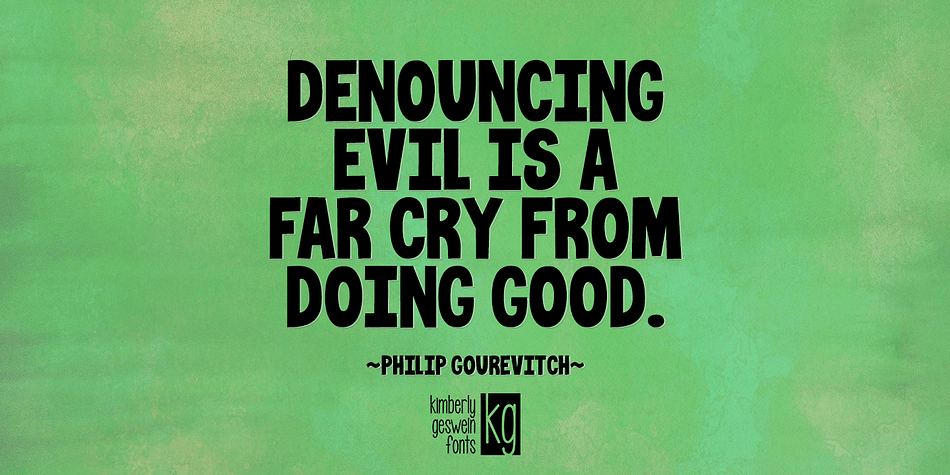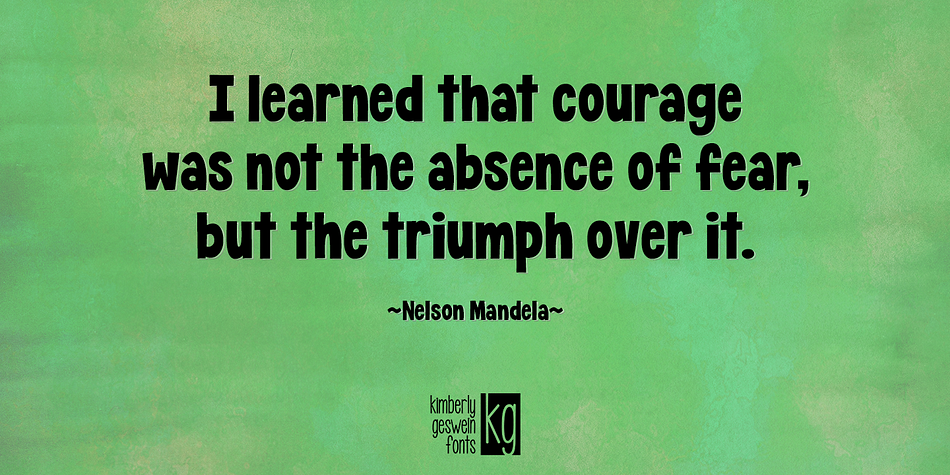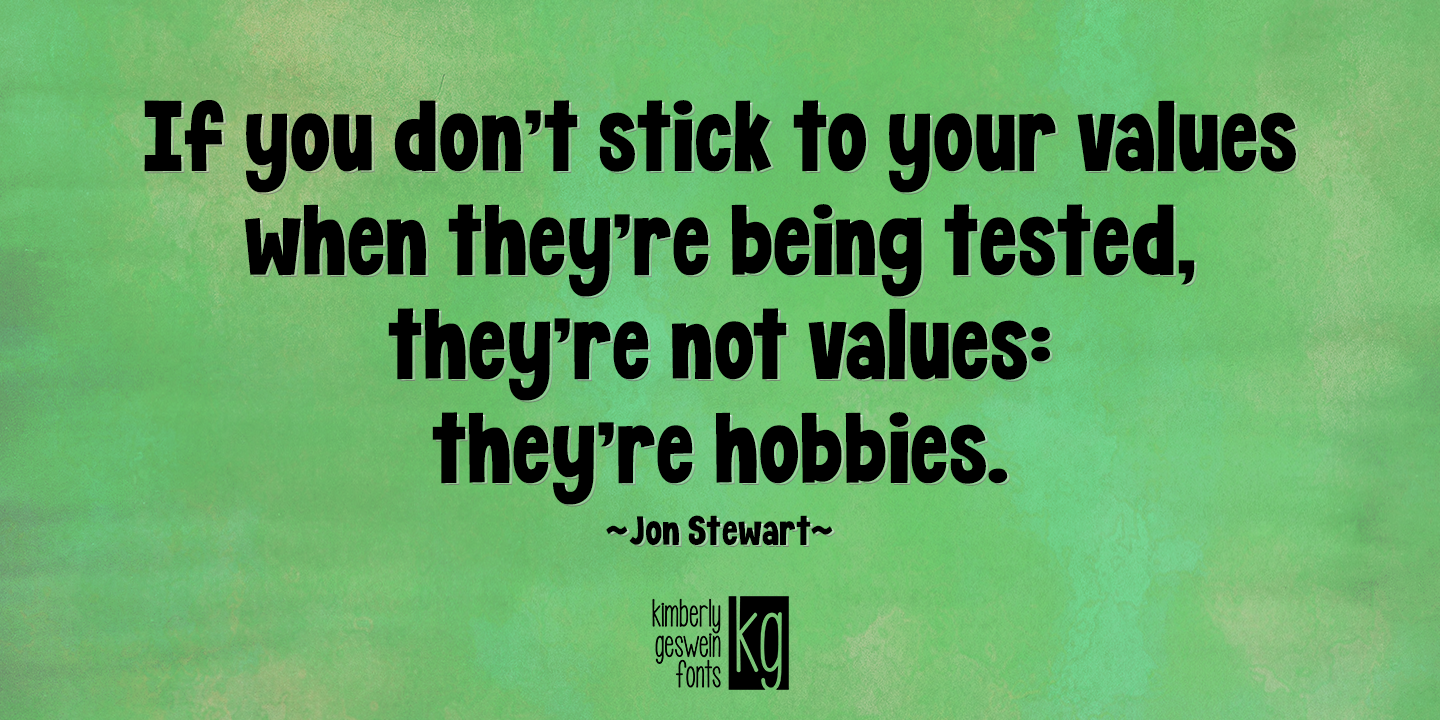
Designed by Kimberly Geswein, KG Crossing A Line is a hand display and kids font published by Kimberly Geswein Fonts.
A bold chunky font that’s legible but still packs in plenty of fun.